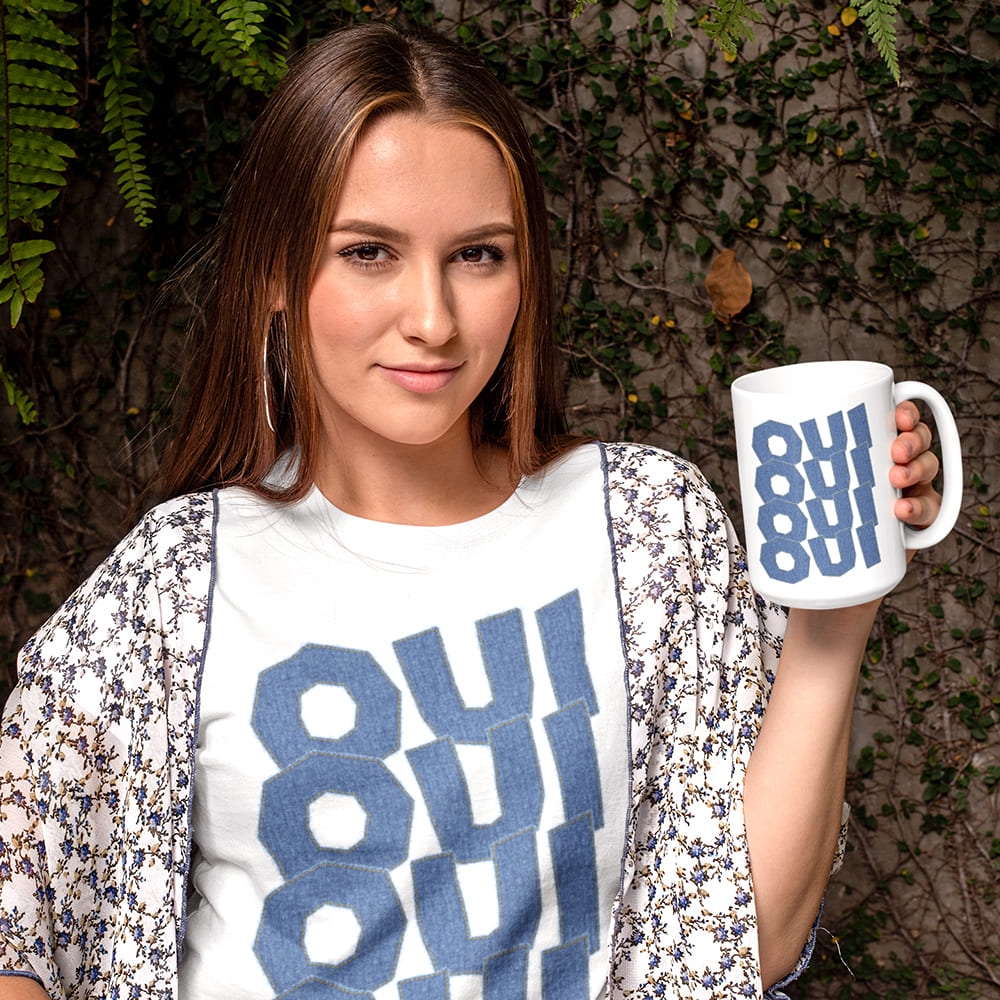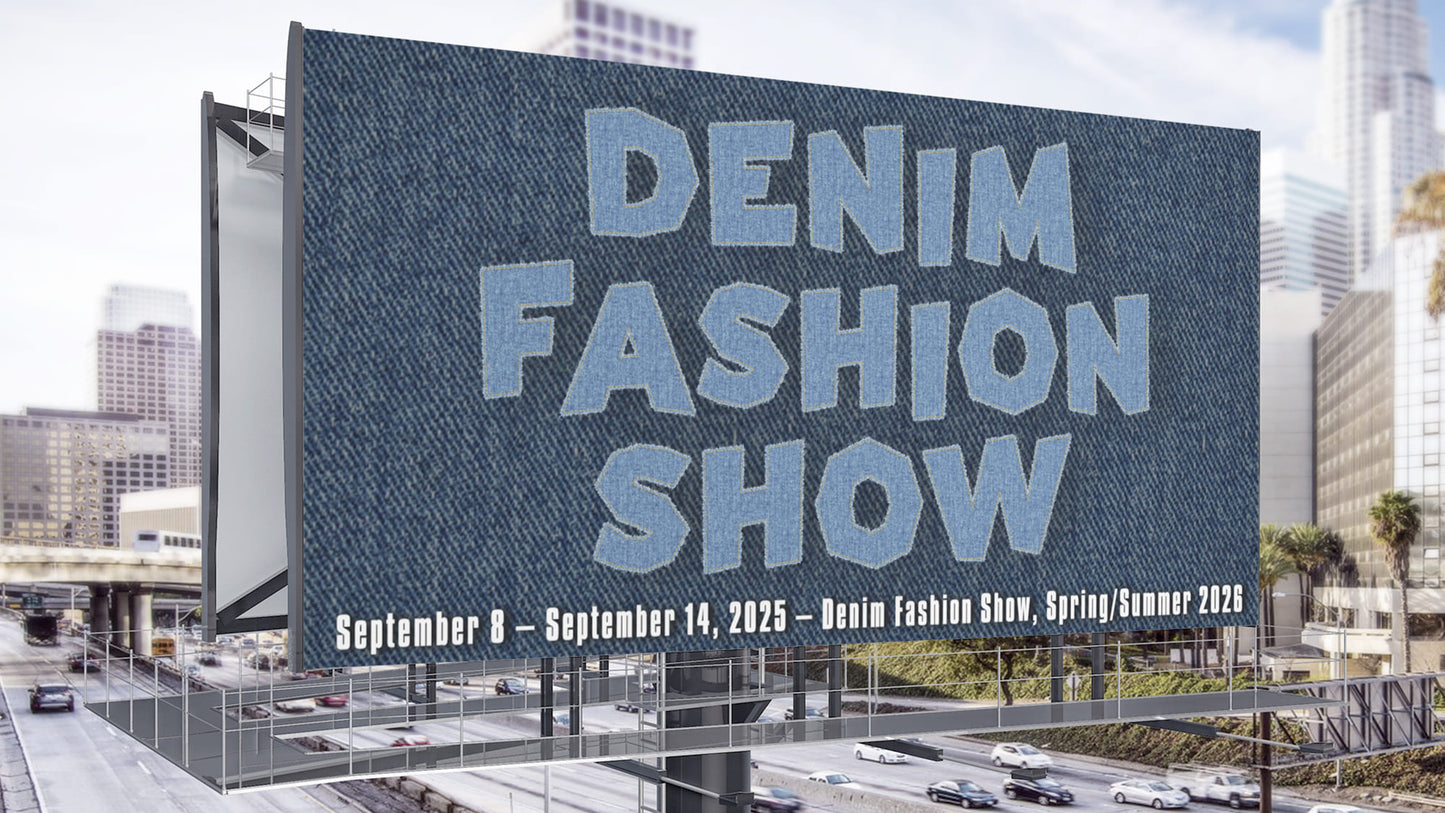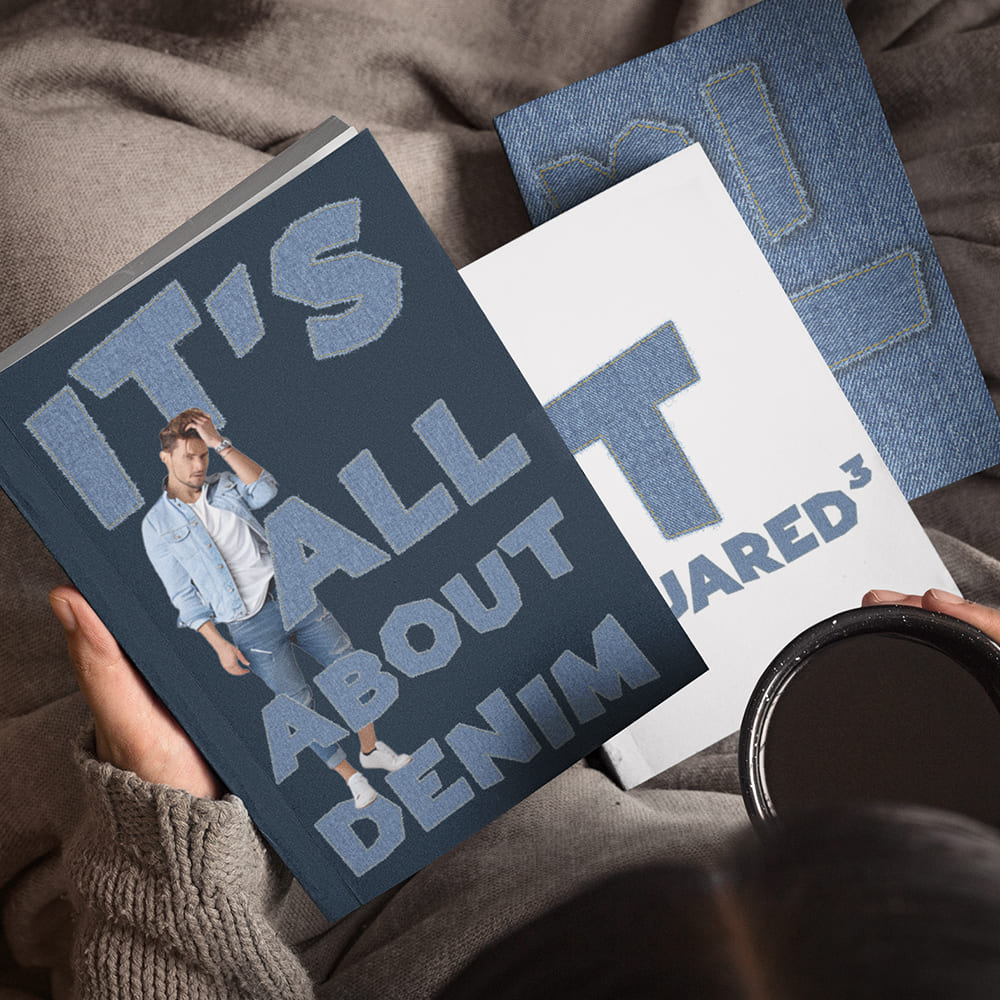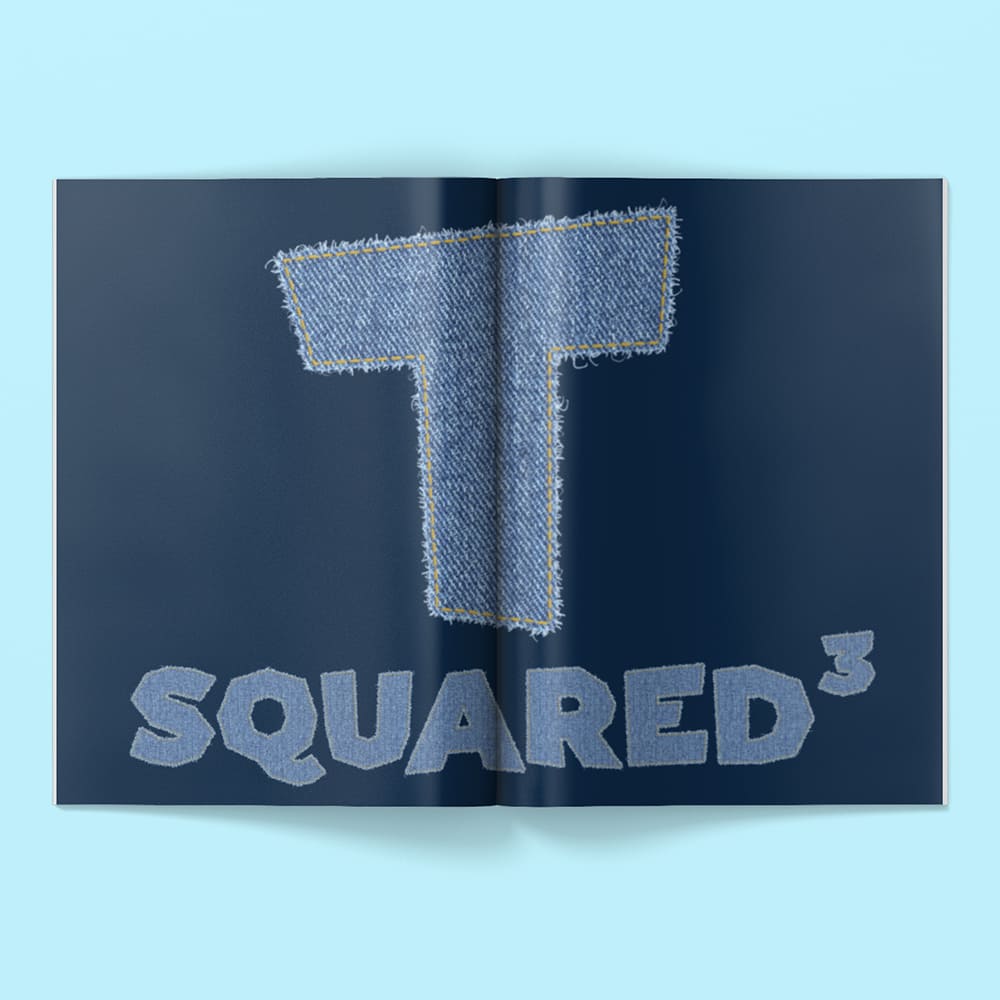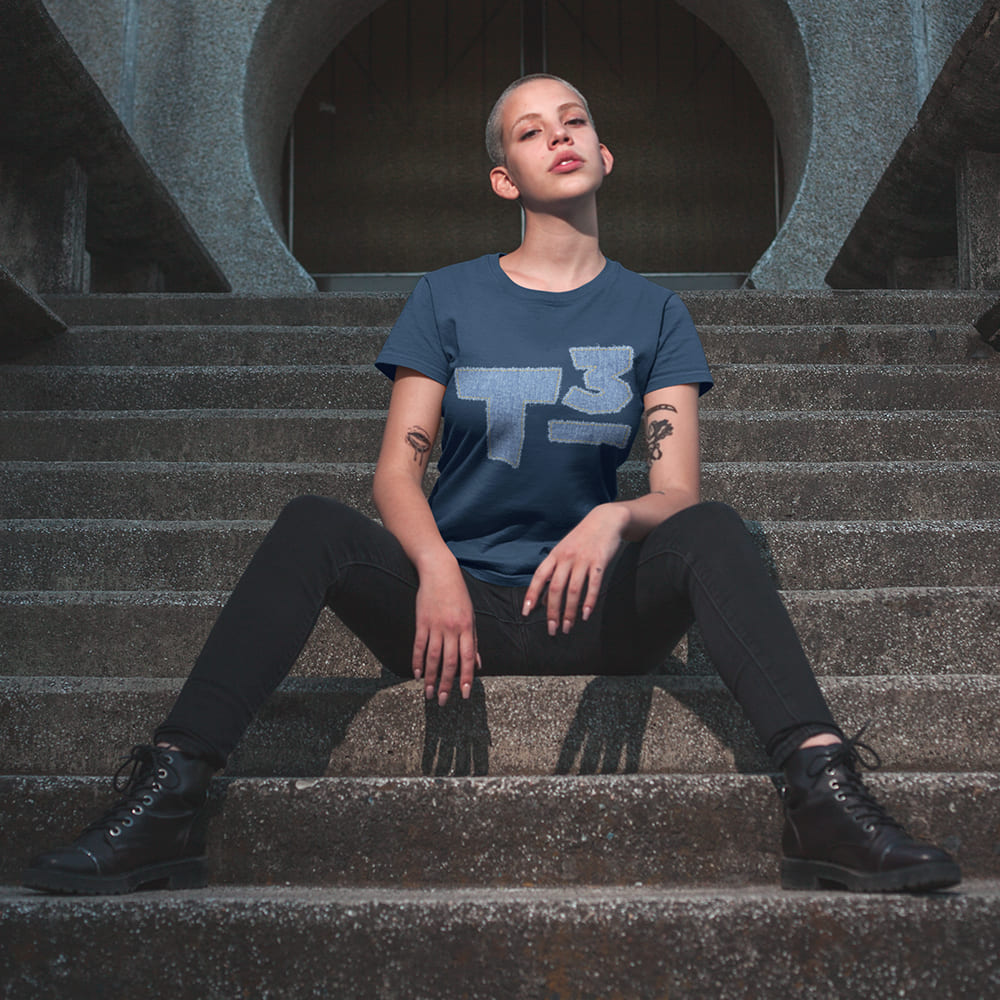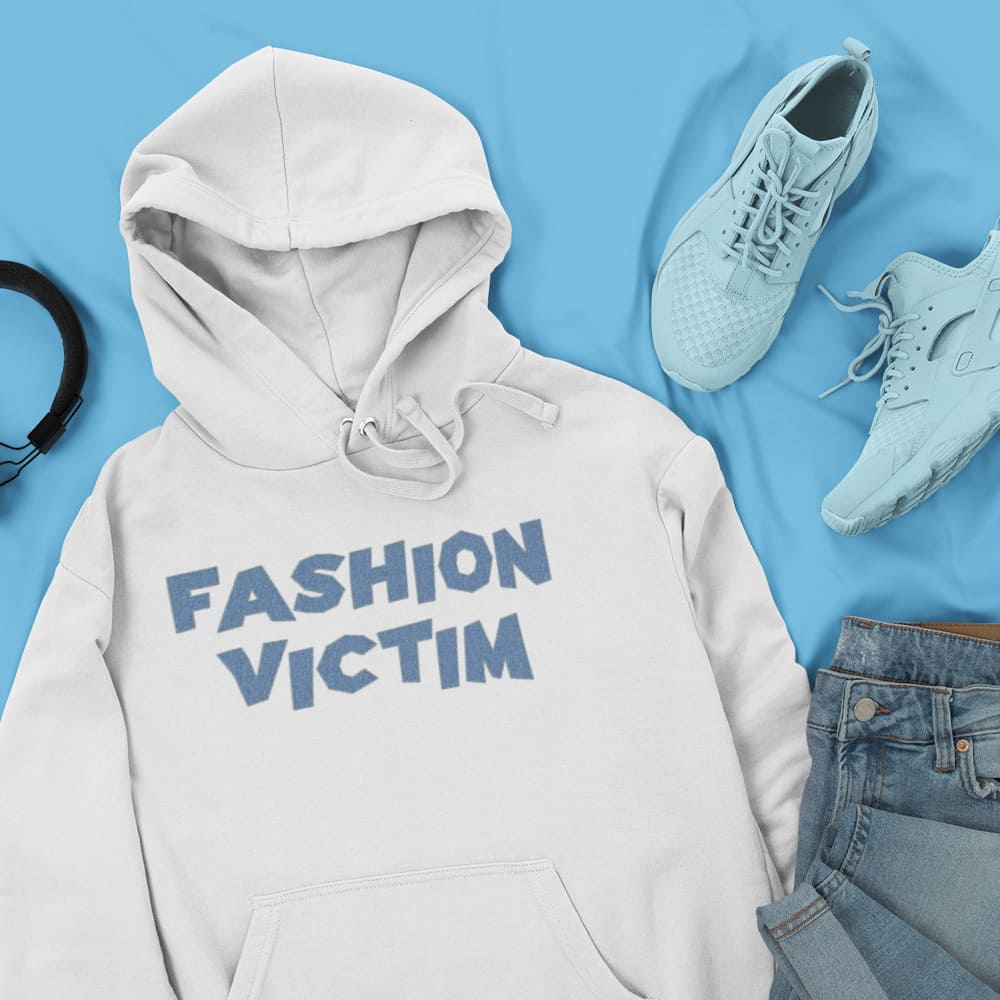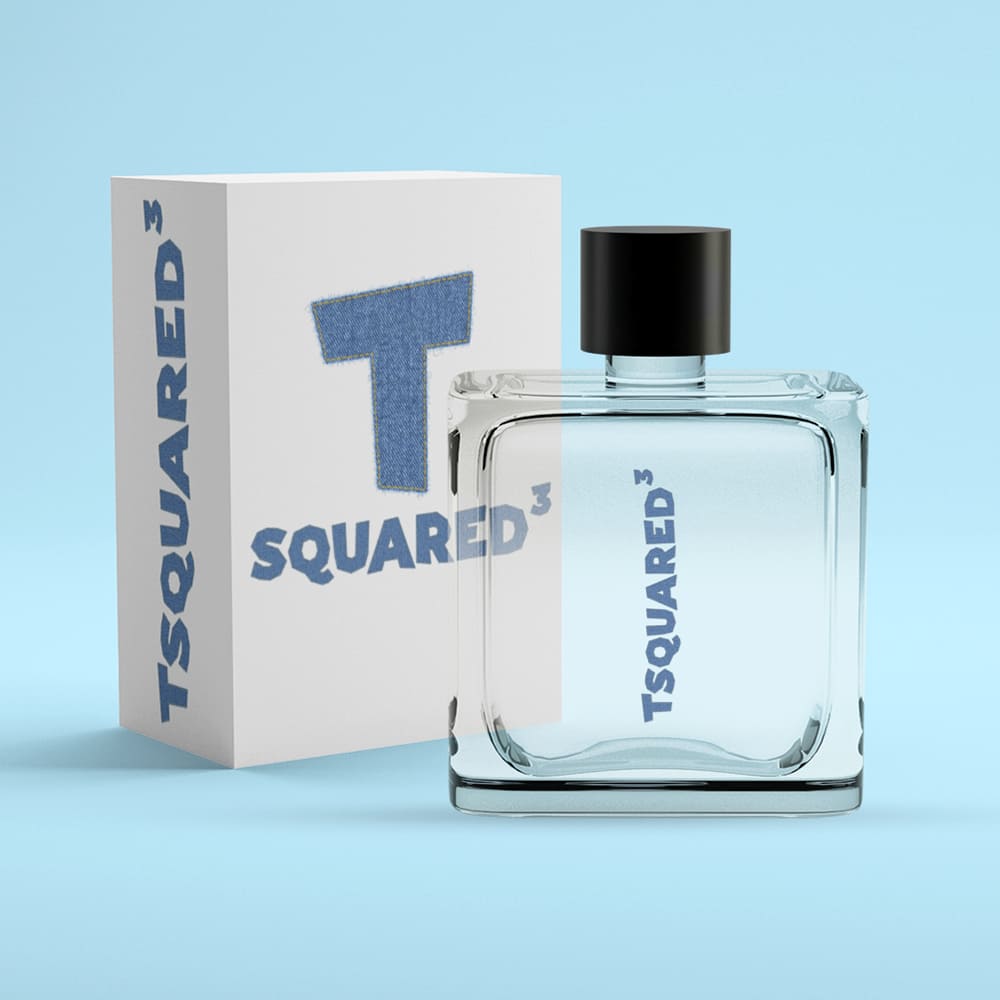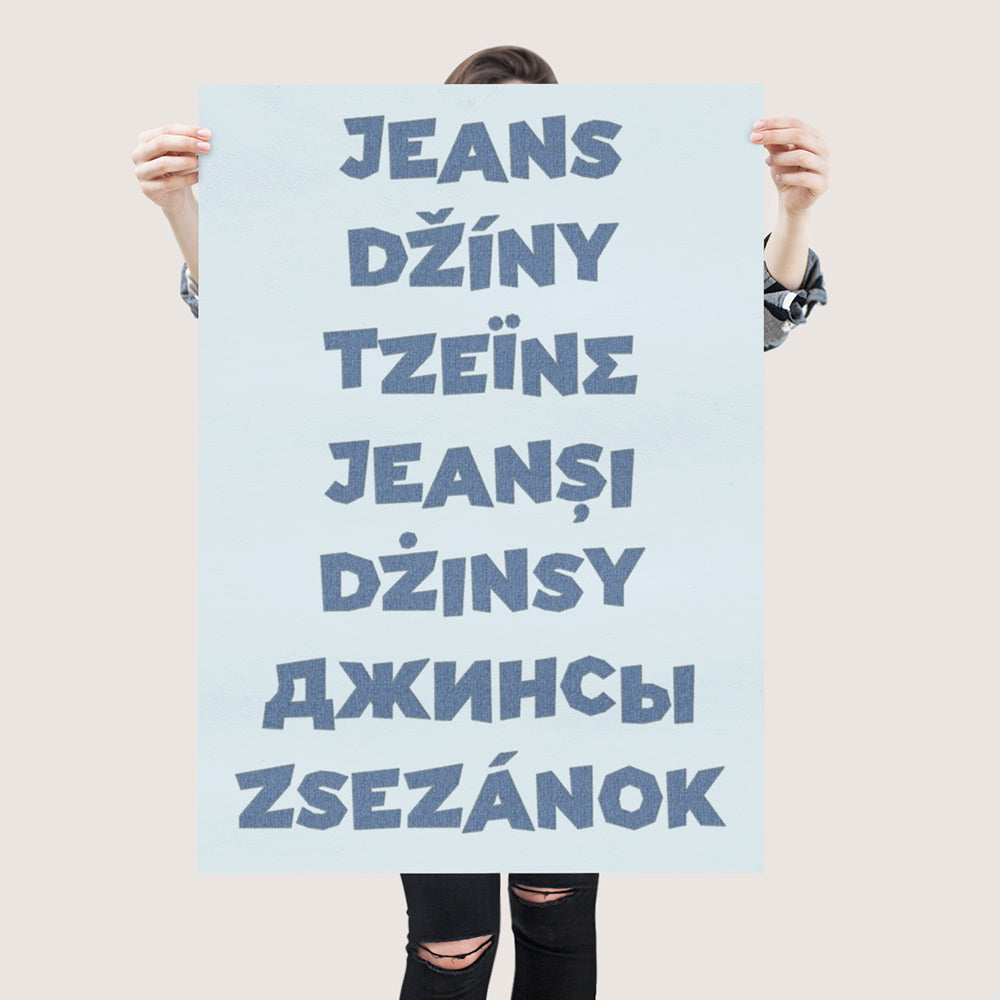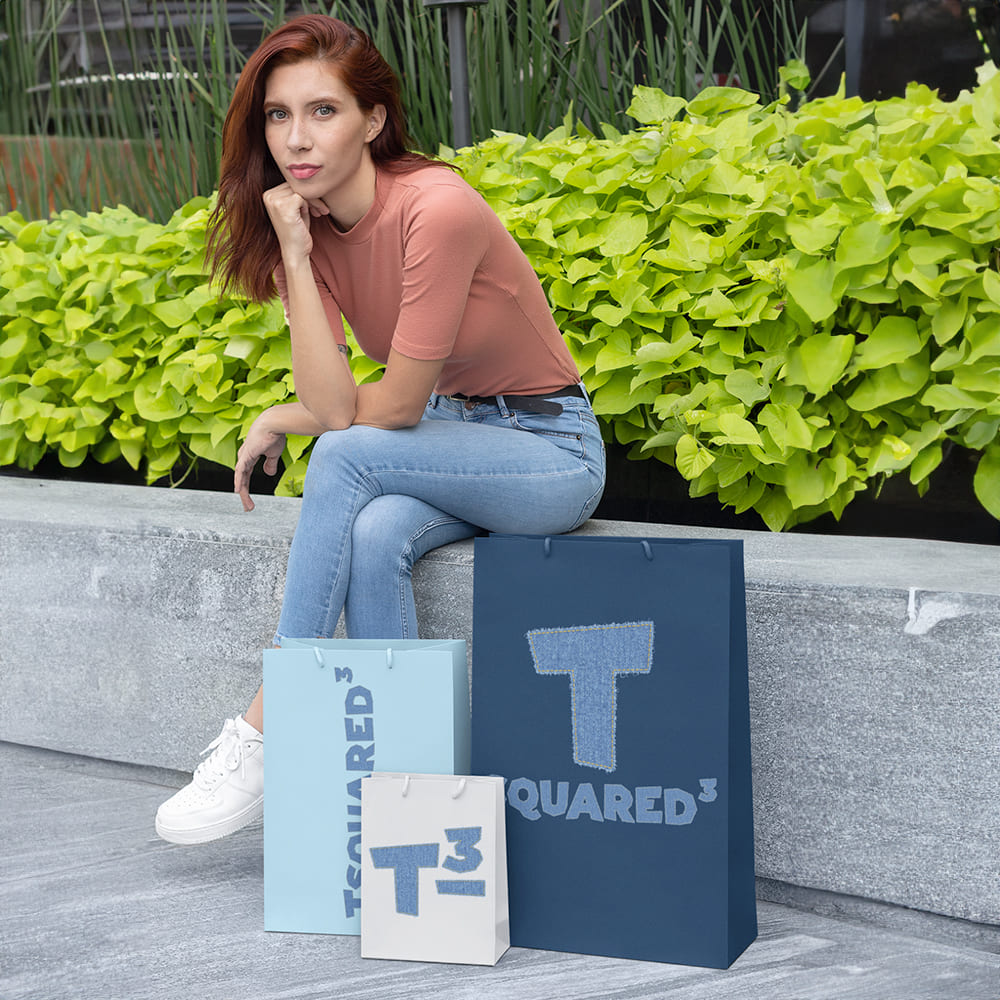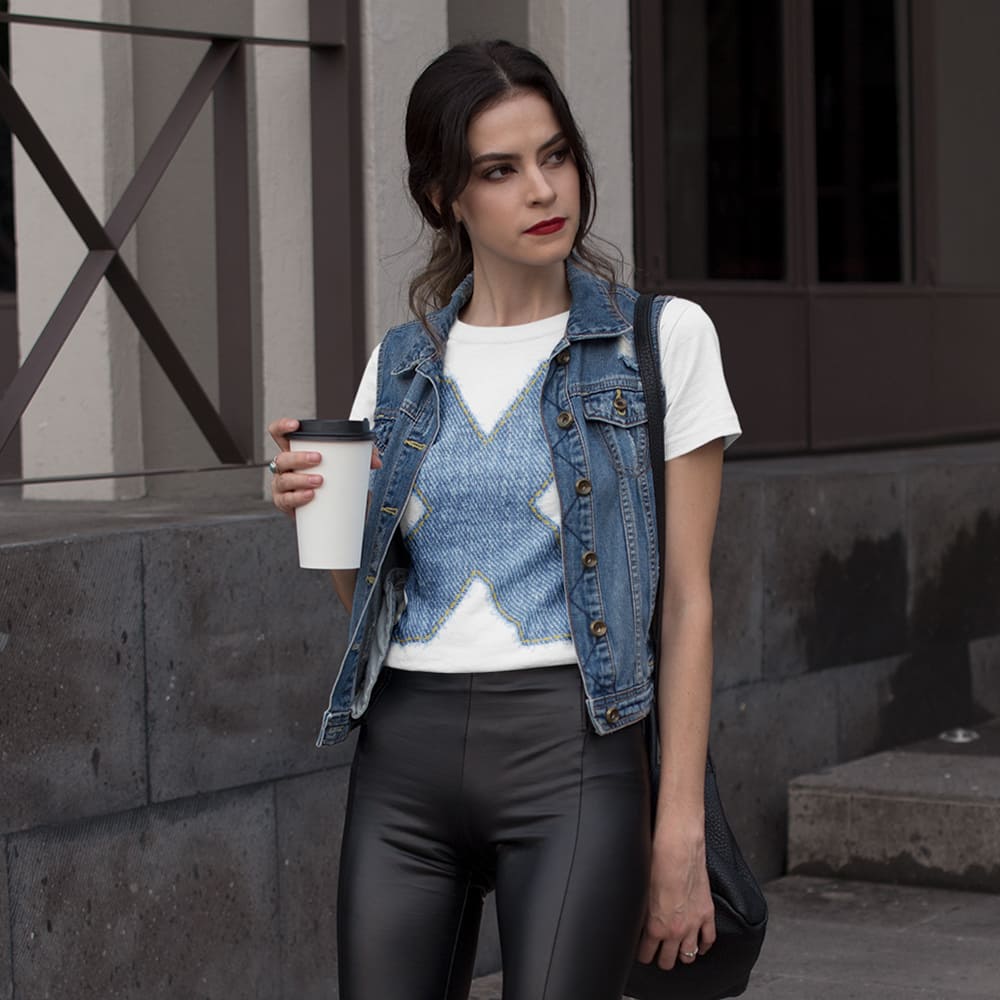
Blue Denim Font
Rugged, Timeless, Urban ๐ถ๏ธ๐๐
Sometimes your design needs that cool, urban look thatโs not only stylish but also rugged and timeless. The Blue Denim Font brings exactly that โ a typeface that recalls the classic, durable blue jeans, perfect for designs with character.
Why Choose the Blue Denim Font?
๐น Rugged and bold โ The Blue Denim Font exudes strength and confidence. Itโs reminiscent of a well-fitting pair of jeans that never go out of style and always look great.
๐น Timeless aesthetic โ With its grounded design and urban appeal, the Blue Denim Font is perfect for streetwear, modern brands, and lifestyle projects that seek a touch of coolness and sustainability.
๐น Ideal for branding and marketing โ Whether for websites, social media campaigns, or print designs, the Blue Denim Font brings the laid-back vibe of denim to any project.
Make a Statement with Blue Denim Font
Give your branding and design the urban touch of blue denim. The Blue Denim Font is the perfect choice for projects looking for a design thatโs all about character, strength, and style.
๐น Make your design unforgettable โ Let the strength and cool factor of the Blue Denim Font speak through your project.
๐น Choose rugged. Choose urban. Choose Blue Denim Font.